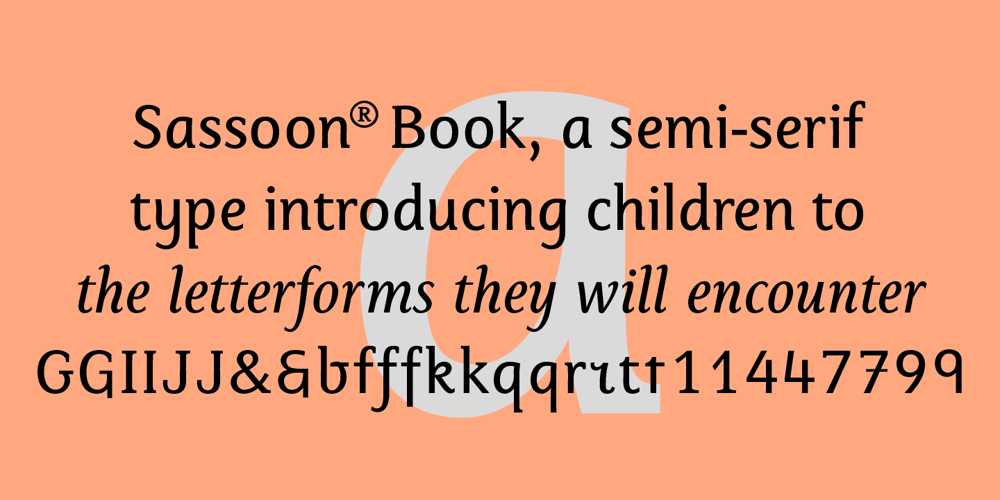
Sassoon Book
Sassoon Book font
Sassoon Book Font Family was designed by Rosemary Sassoon and published by Sassoon-Williams. Sassoon Book contains 2 styles and family package options. Semi-Serif Roman and Italic for typefaces for setting legible children’s reading books. A gentle introduction for young readers to seriffed letterforms they will encounter. Free to download resources: How to access Stylistic Sets of alternative letters in these fonts